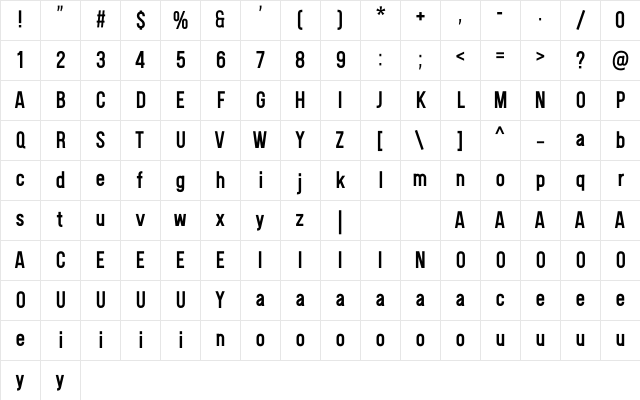
Fitiya Bold Free Font
Fitiya Bold
Foundry: B'Night Studio
Designer: Hamas
Design Context for Fitiya
Fitiya is a composed and adaptable typeface that performs quietly and consistently across a wide range of design contexts. Its bold stroke weight gives it real presence on the page.